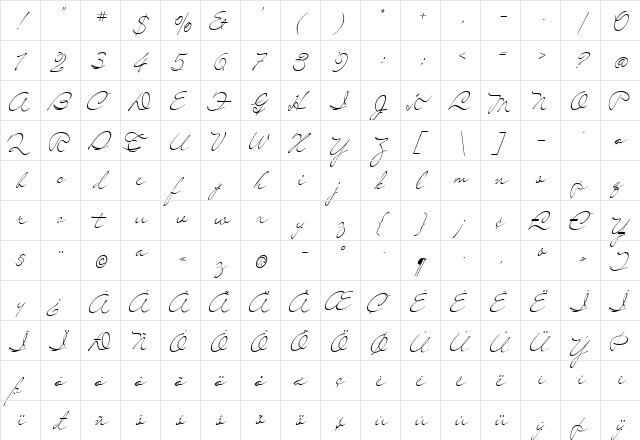
Mr Leopolde Regular
Design Context for Mr Leopolde Typeface
Mr Leopolde is a composed and adaptable typeface that performs quietly and consistently across a wide range of design contexts.